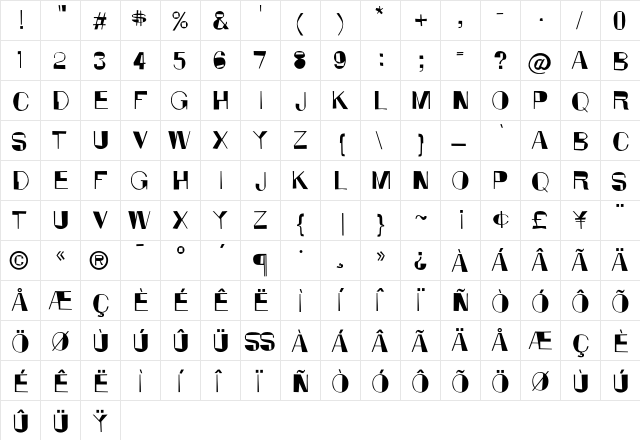
Anarko Regular
Design Context for Anarko Typeface
Anarko is a composed and adaptable typeface that performs quietly and consistently across a wide range of design contexts.